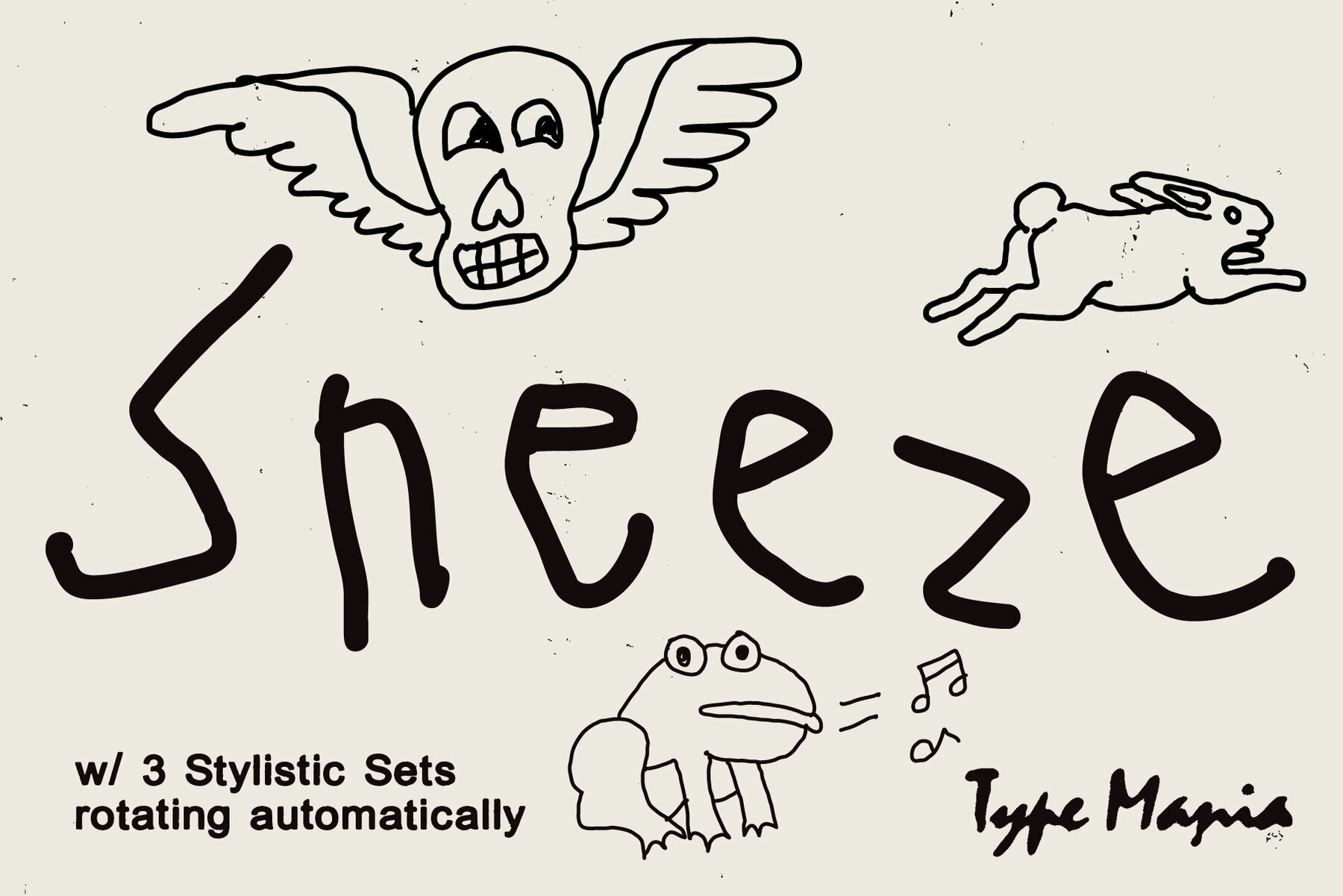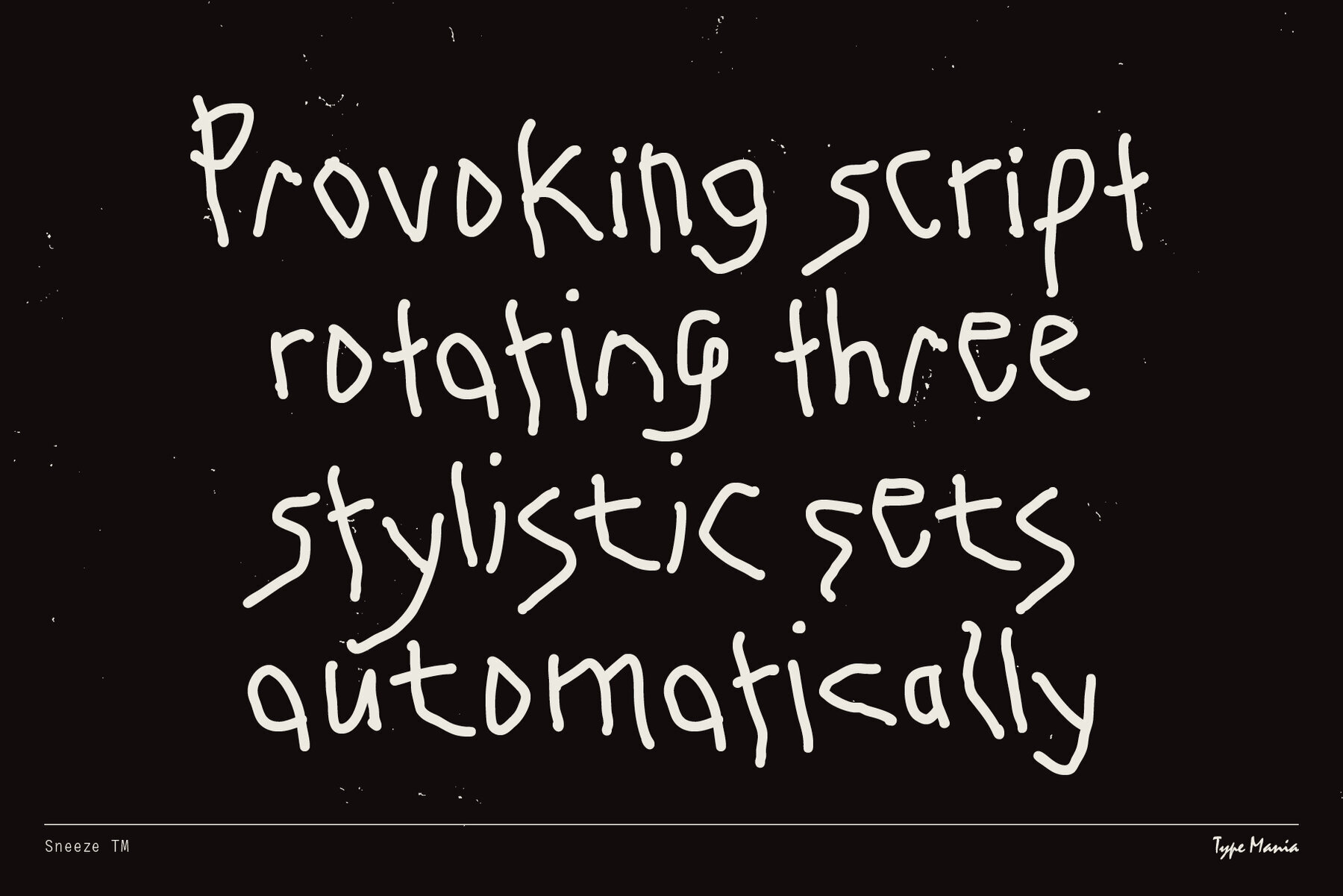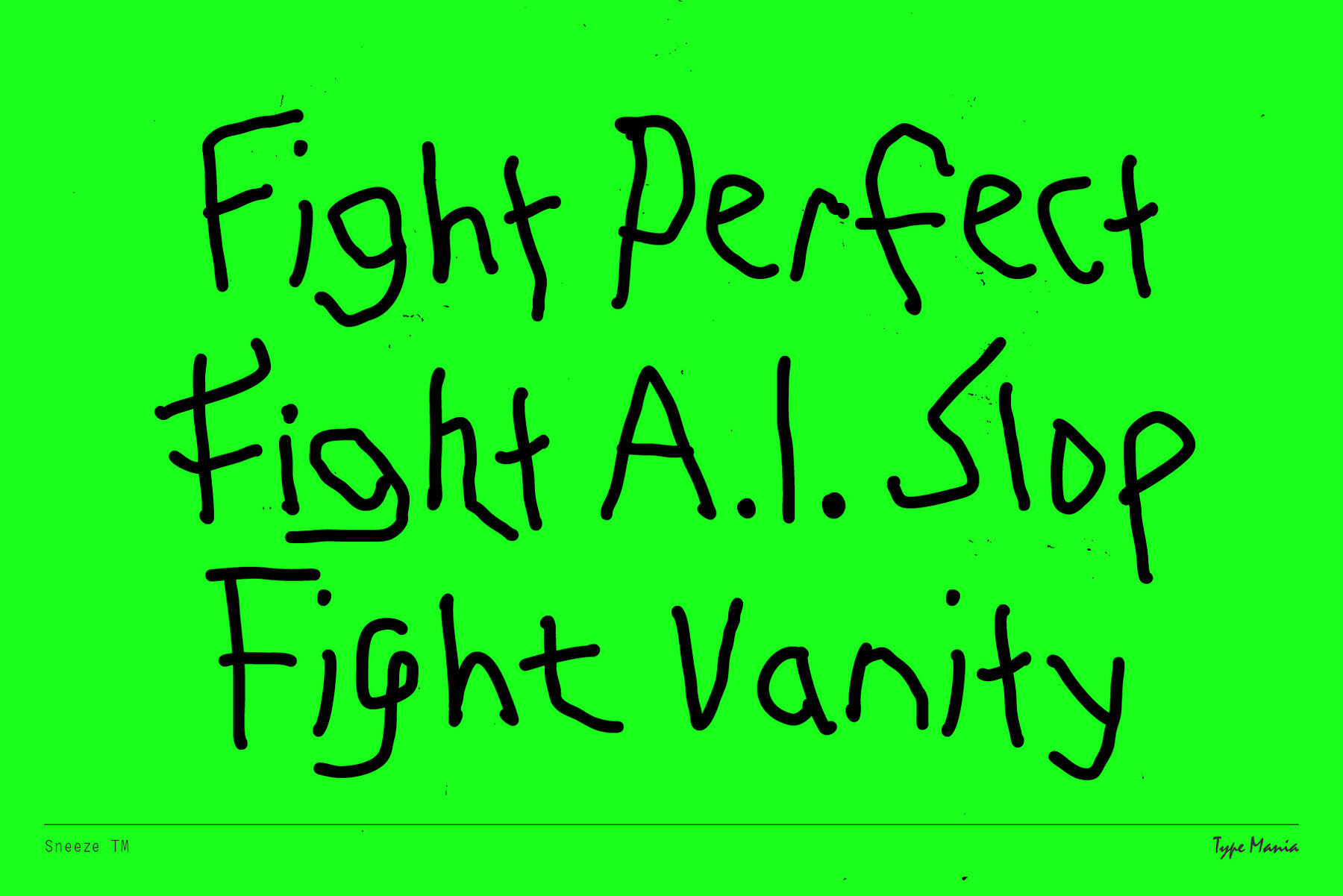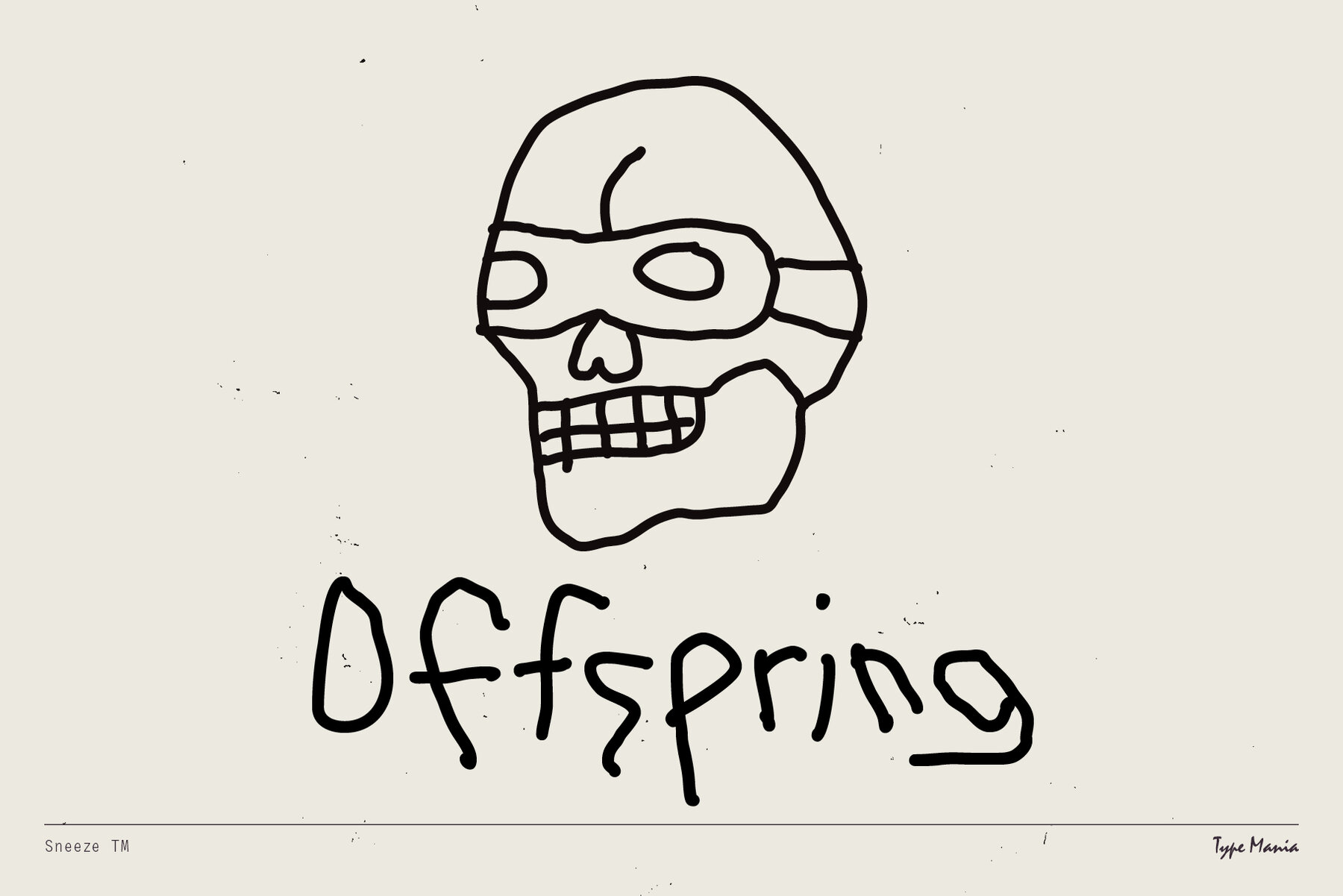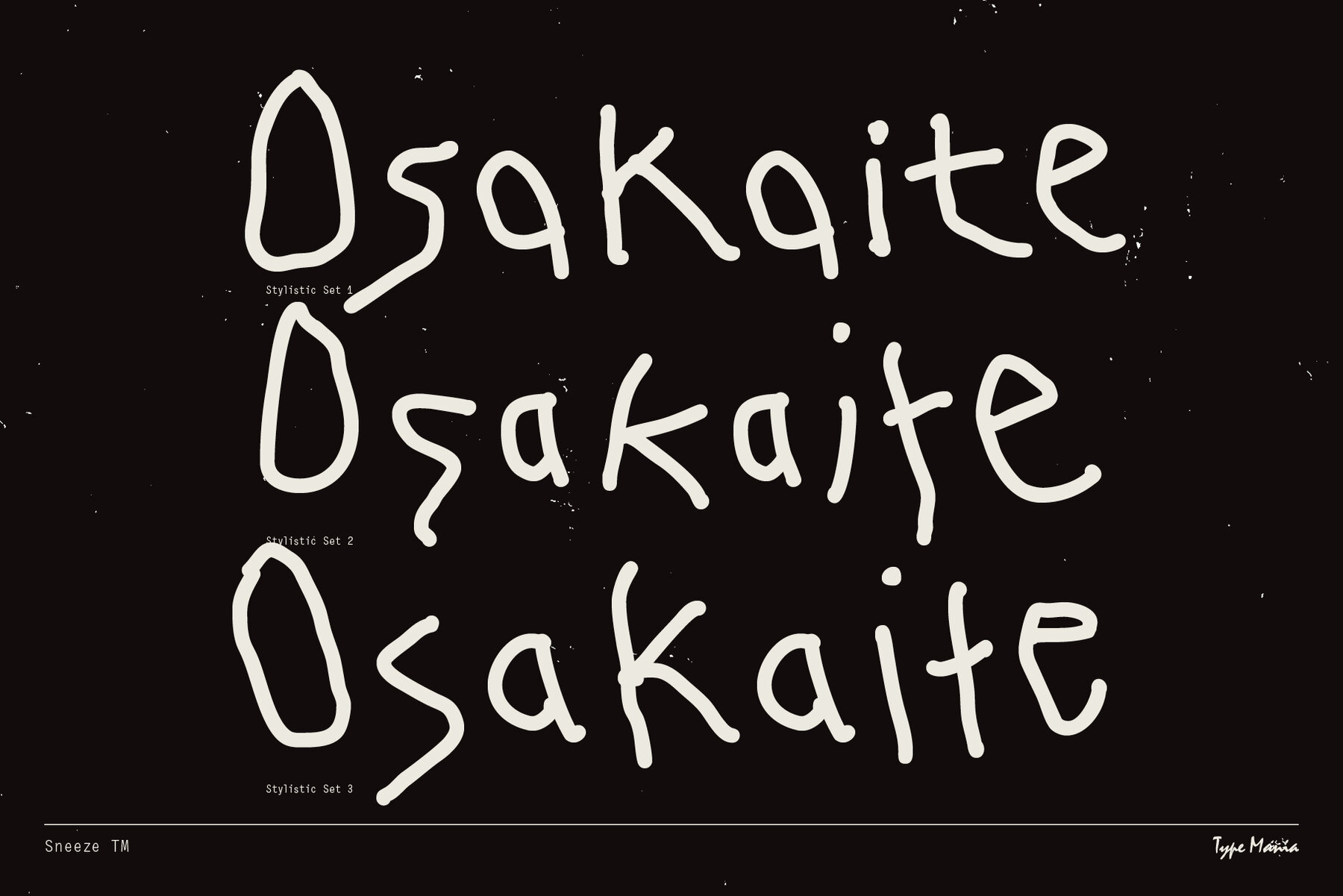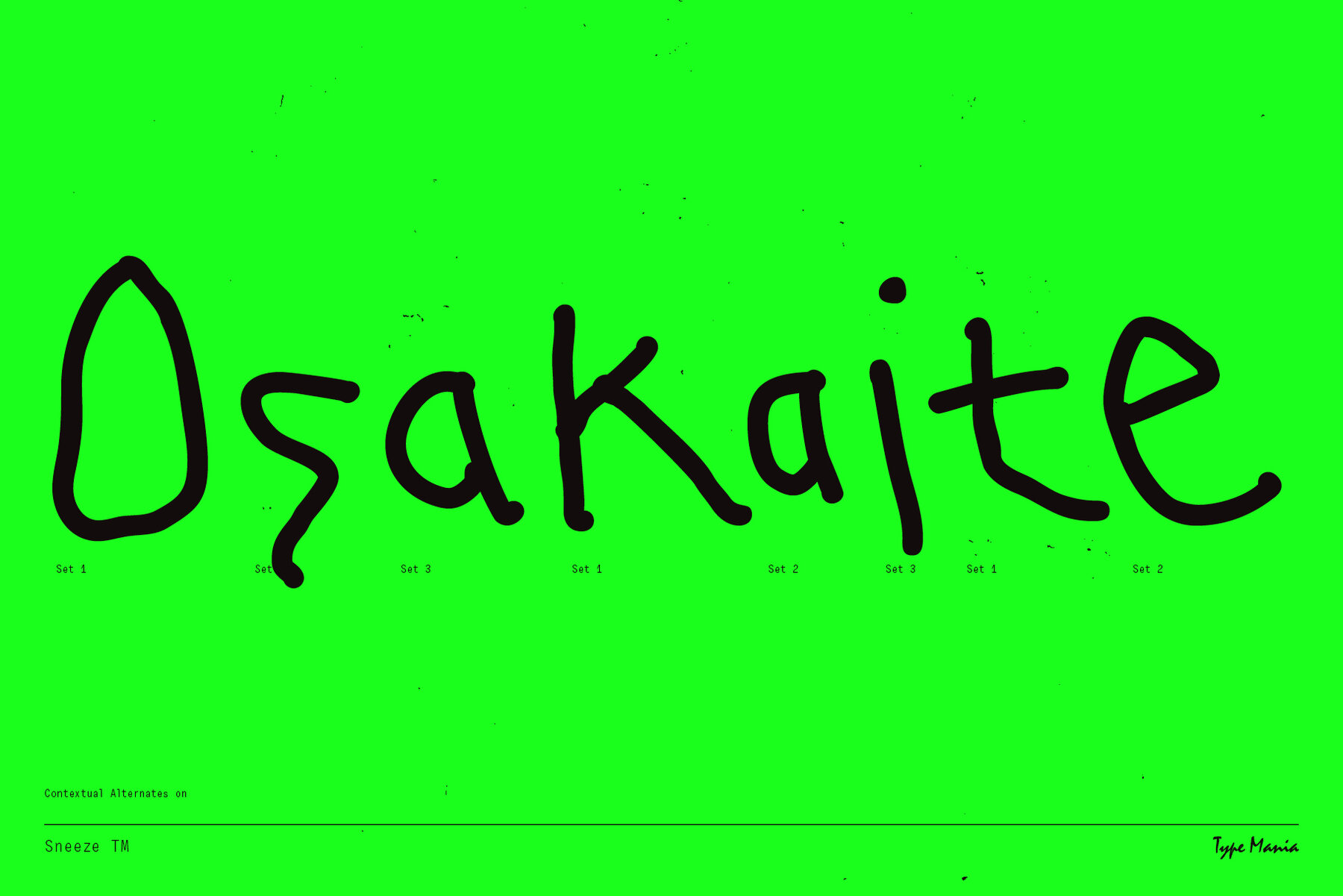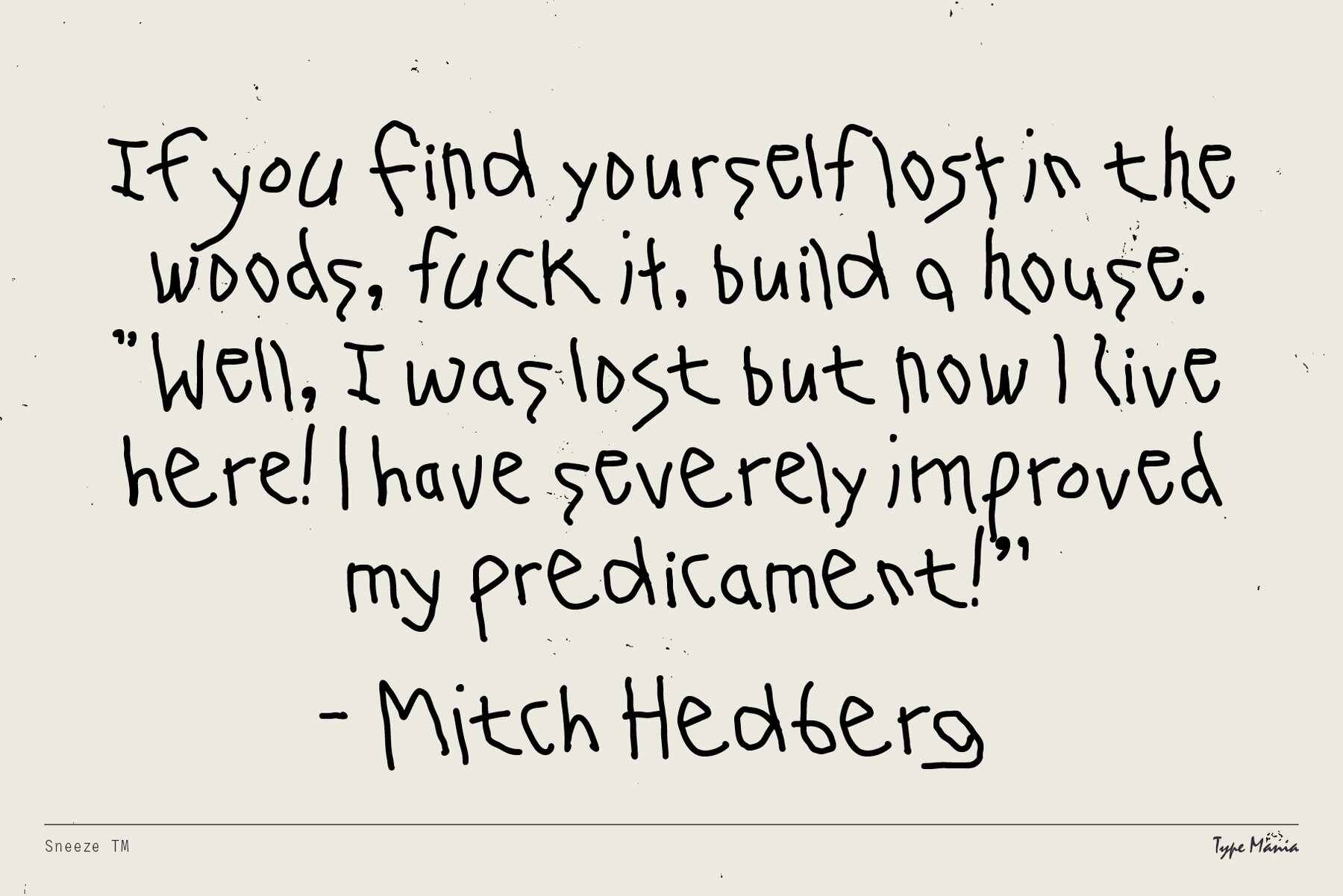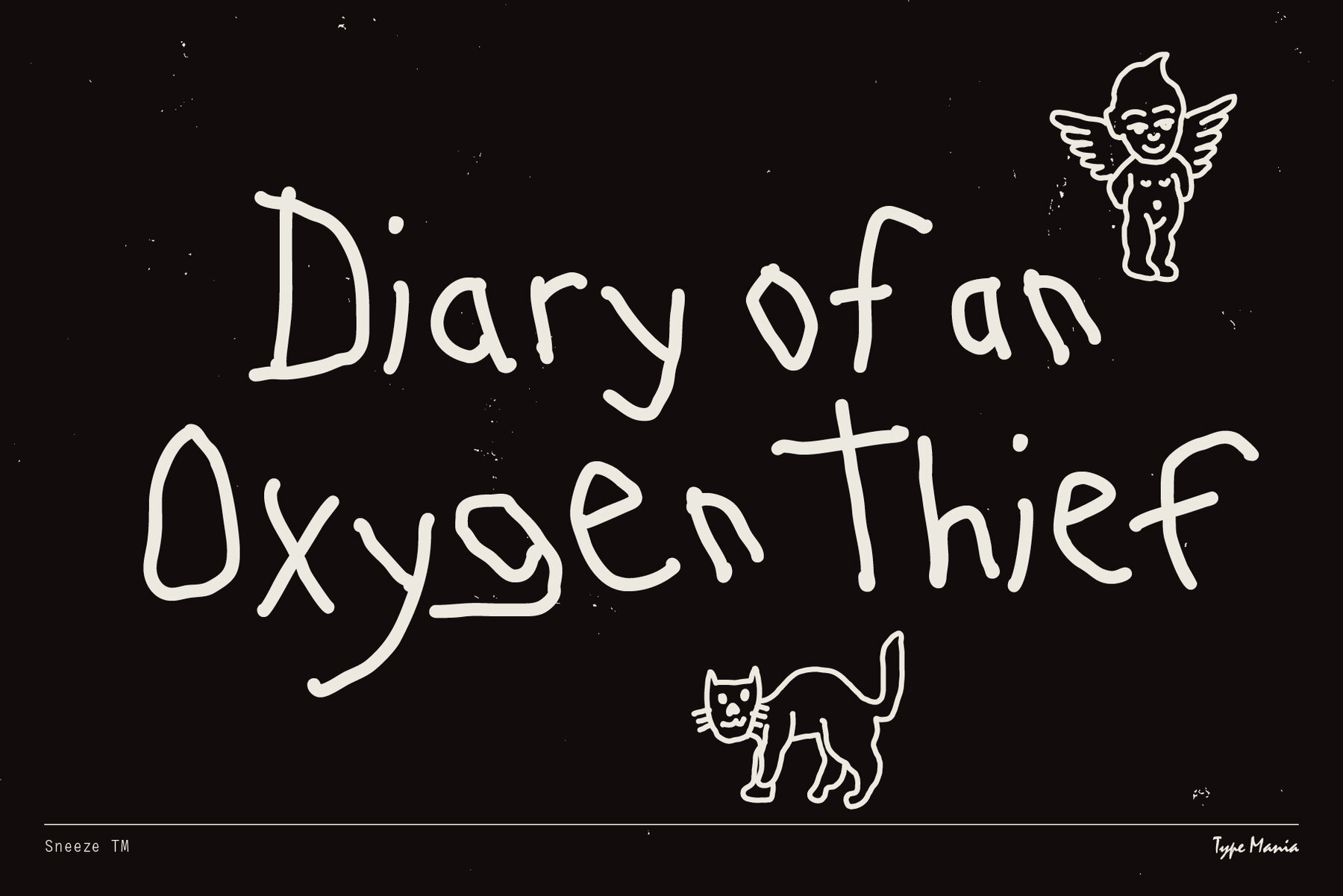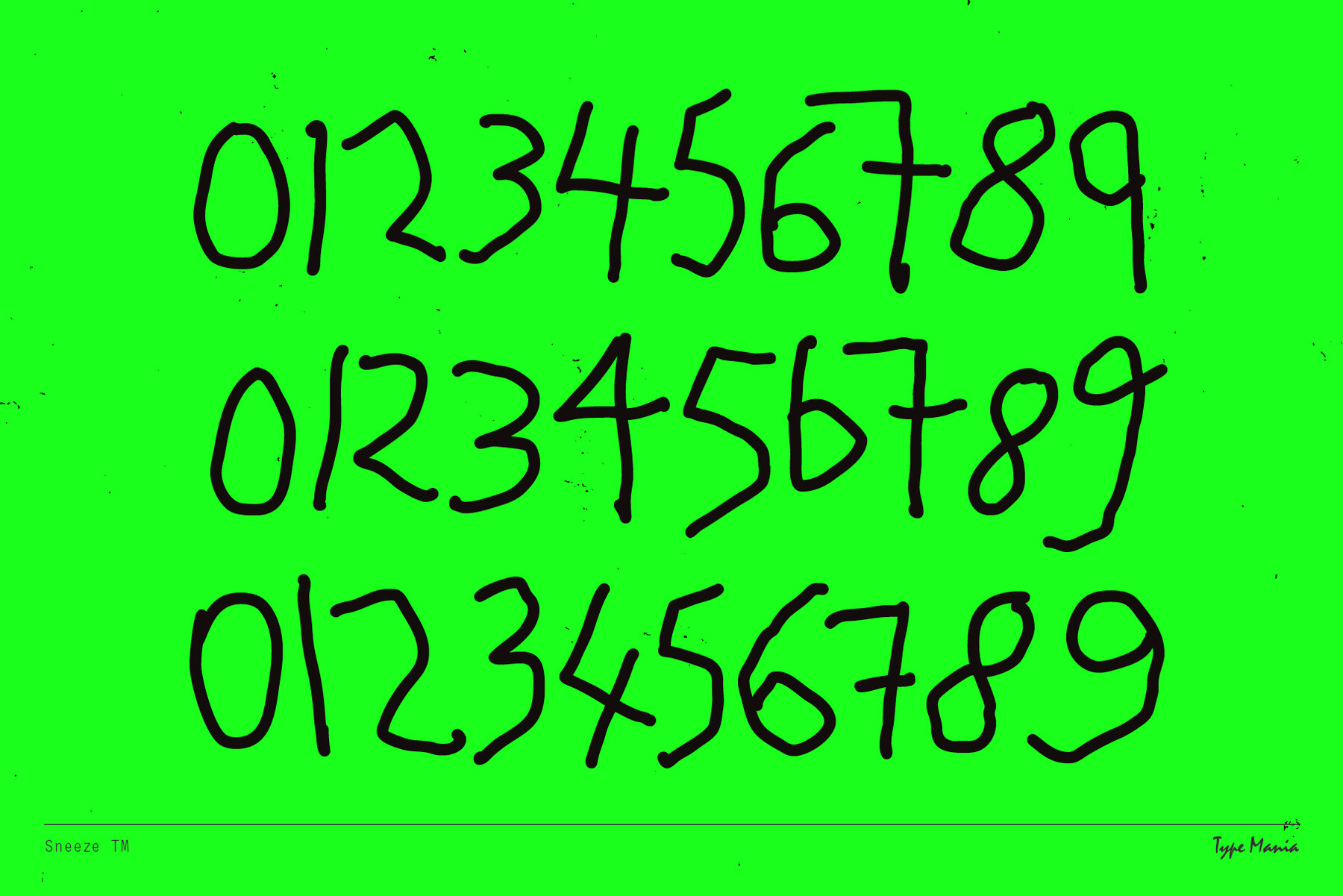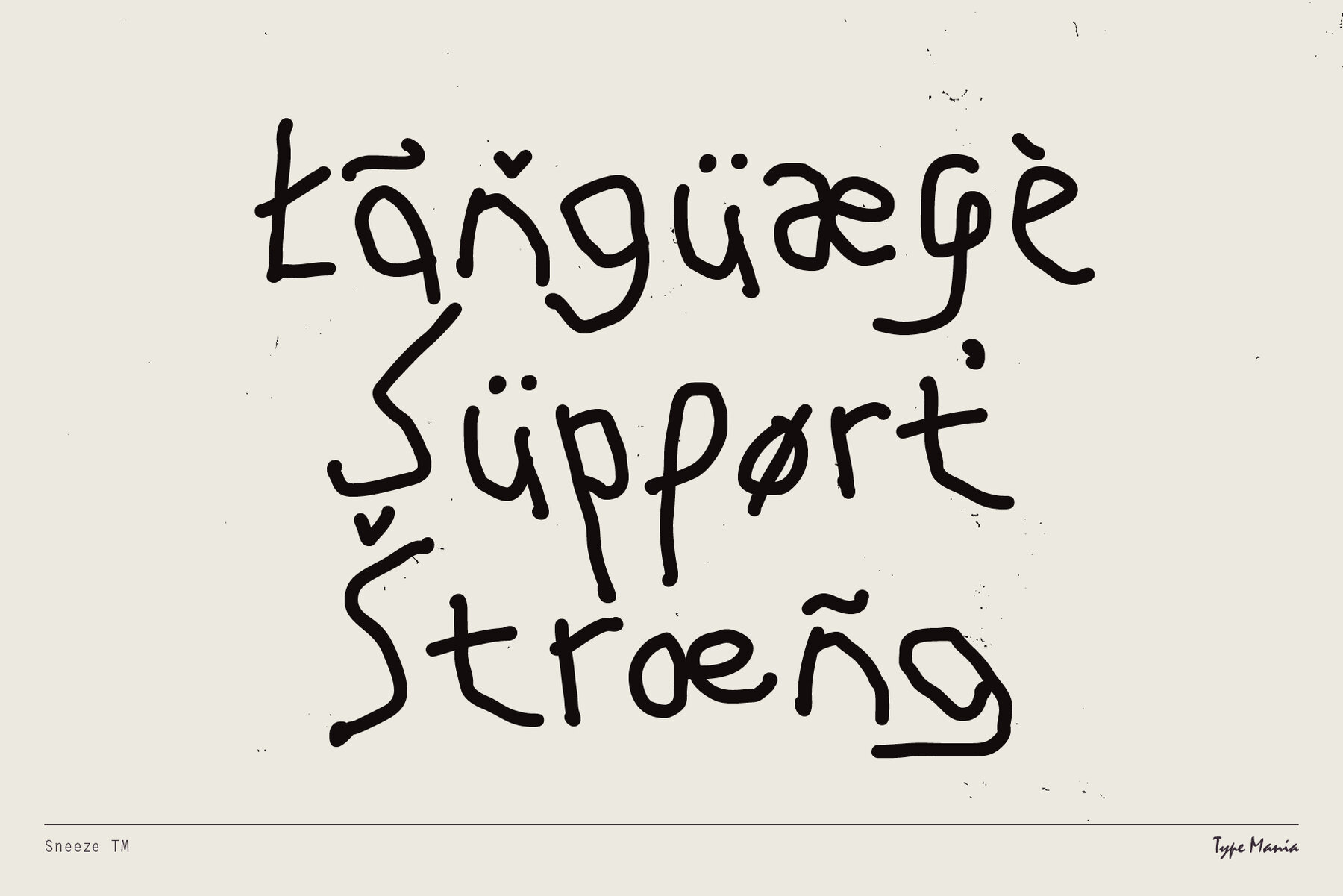
Sneeze TM Font
Sneeze TM Regular
Explore the unrefined allure of Sneeze TM, a font that celebrates imperfection. Its contextual alternates feature allows three stylistic sets to rotate seamlessly, lending an organic rhythm to your designs. In a world often obsessed with flawlessness, Sneeze TM champions authenticity and character.Sneeze TM: A Raw Marker Font with Organic Flow